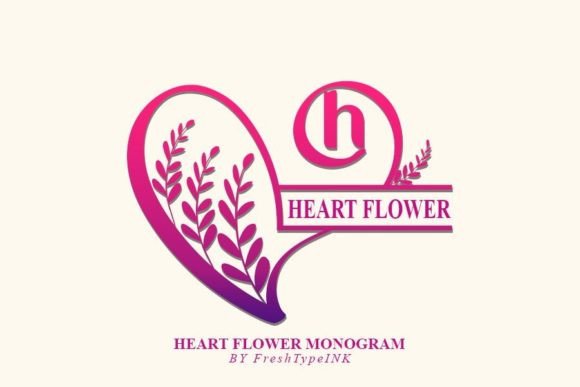
Indulge in the captivating charm of Heart Flower Monogram, the exquisite font that will transform your digital presence into a masterpiece.
Adorned with intricate floral motifs, each letter is a captivating work of art, breathing life into your designs. This enchanting font will elevate your emails, business correspondence, and branding materials with an air of sophistication and elegance.
Crafted by the renowned FreshTypeINK, Heart Flower Monogram is a testament to meticulous attention to detail and exceptional artistry. Its graceful curves and delicate flourishes will dance across your designs, leaving an unforgettable impression.
Whether you seek to create enchanting logos that captivate your audience or design personalized stationery that exudes timeless charm, Heart Flower Monogram is your perfect companion. Its versatility extends from invitations that radiate warmth and elegance to social media posts that bloom with vibrancy.
Embrace the allure of Heart Flower Monogram today and let your designs blossom with newfound beauty. Experience the transformative power of a font that speaks to the heart and elevates your creativity to new heights.